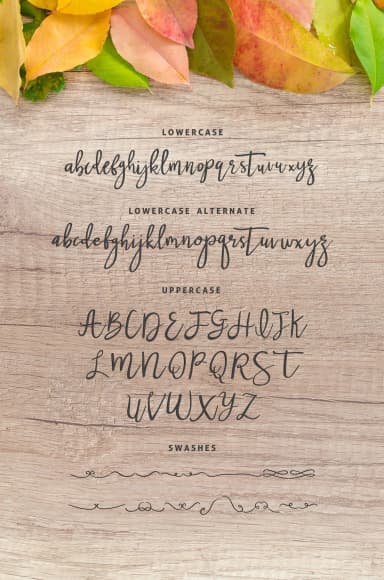
Nastar Font by Graphicfresh is a contemporary handwritten script that merges organic expressiveness with practical design versatility. Featuring naturally curved letterforms that feel both personable and polished, this typeface successfully occupies the sweet spot between casual hand-lettering and formal professional typography. The complete font family encompasses Nastar Alt and Nastar Swash versions, allowing designers to select complementary styles individually or strategically combine them for layered, multi-dimensional compositions that capture specific design moments and emotional tones. The script particularly shines in applications where visual personality strengthens overall brand perception and market positioning. Wedding invitation suites benefit significantly from its balanced approach to elegance and warmth, creating lasting impressions without veering toward dated aesthetics. Luxury brand packaging, especially for beauty and skincare categories, gains a sophisticated quality that differentiates products on crowded retail shelves. Editorial designers employ Nastar for magazine layouts, web content, and promotional materials where the script's signature quality enhances both readability and emotional connection with audiences. Custom merchandise, personalized gifts, and craft projects also showcase the font's distinctive ability to convey craftsmanship and care, qualities that consumers actively seek in handmade and small-batch goods. Access Nastar Font on Creative Fabrica and expand your typographic toolkit with this distinctive script.
Nastar Font is a script font that shines as a display or heading face. Pair it with a clean sans-serif or serif font for body text β the contrast creates a clear hierarchy while the two styles stay balanced and easy to read.
Nastar Font
by Graphicfresh